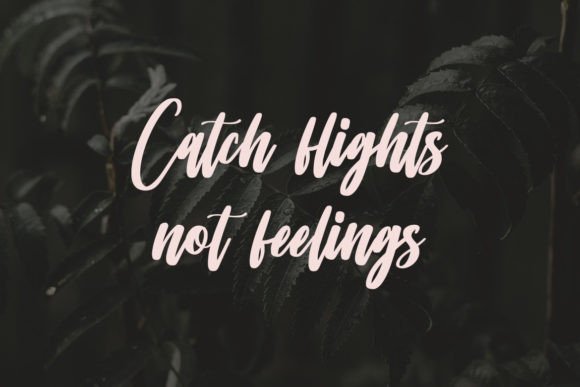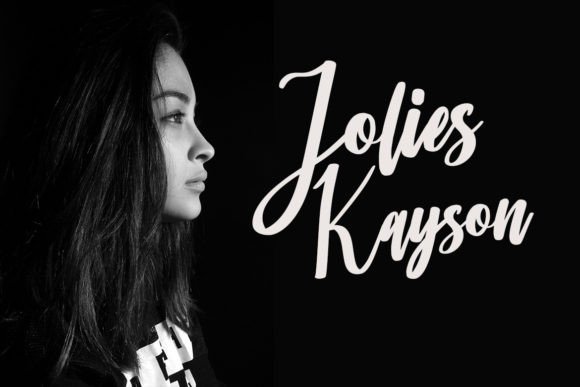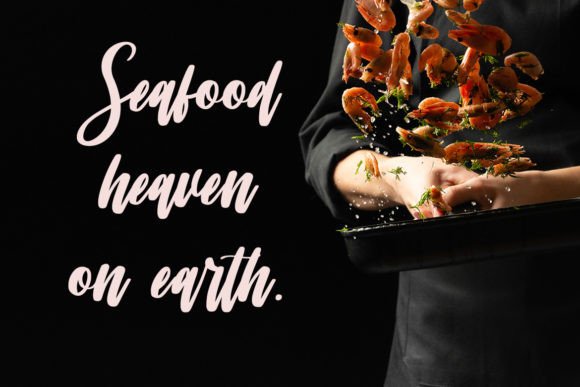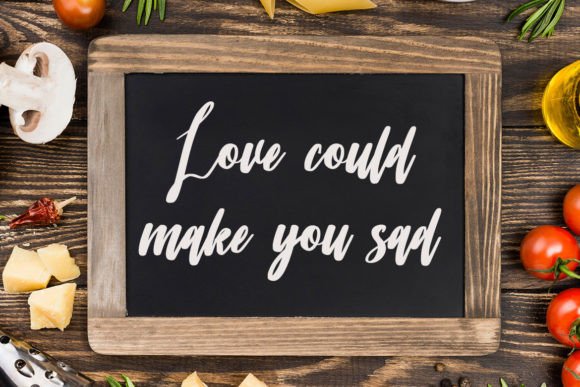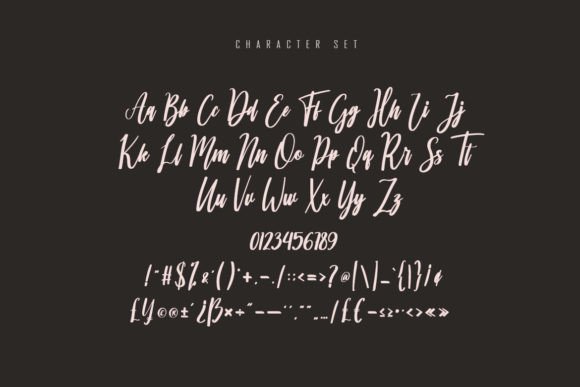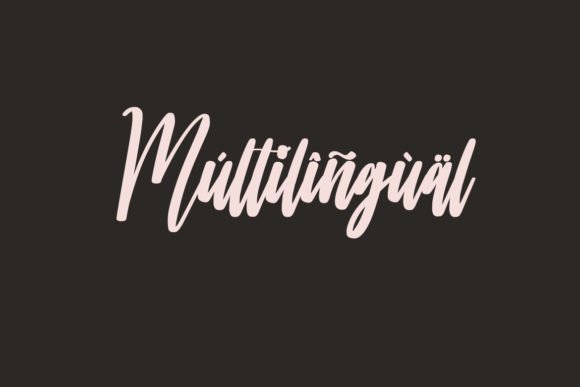
Addinu Lana Font: Elevate Your Designs with a Touch of Elegance
In the world of typography, fonts play a crucial role in conveying the tone and personality of a design. For designers and crafters seeking a script font that exudes elegance and sophistication, Addinu Lana is an excellent choice. This beautiful script font boasts a natural flow and stunning style, making it perfect for a wide range of design projects.
The Beauty of Addinu Lana Font
Addinu Lana is a script font that stands out for its fluid, handwritten appearance. Its elegant strokes and curves create a sense of movement and harmony, making it ideal for designs that require a touch of refinement. Whether you’re working on wedding invitations, branding materials, or social media posts, Addinu Lana adds a level of sophistication that elevates your designs.
One of the key benefits of Addinu Lana is its versatility. This script font can be used for a wide range of design projects, including:
- Wedding invitations and stationery: Add a touch of romance and elegance to your wedding designs with Addinu Lana.
- Branding and logos: Create a lasting impression with a custom logo or branding materials that showcase your business’s personality.
- Social media posts: Elevate your social media presence with eye-catching graphics and posts that feature Addinu Lana.
- Advertisements: Grab attention with ads that incorporate this beautiful script font.
- Product packaging and design: Add a touch of sophistication to your product packaging and design with Addinu Lana.
- Labels and photography: Use Addinu Lana to create stunning labels and watermarks for your photos.
- Invitations and stationery: From birthday invitations to thank-you cards, Addinu Lana is perfect for any occasion.
Why Choose Addinu Lana Font?
So, what sets Addinu Lana apart from other script fonts? Here are just a few reasons why designers and crafters love this font:
- Natural flow: Addinu Lana’s fluid strokes and curves create a sense of movement and harmony.
- Beautiful style: This script font boasts a stunning, elegant appearance that’s perfect for designs that require a touch of sophistication.
- Versatility: Use Addinu Lana for a wide range of design projects, from wedding invitations to product packaging.
- Easy to read: Despite its elegant appearance, Addinu Lana is easy to read, making it perfect for body text and headlines.
Tips for Using Addinu Lana Font
To get the most out of Addinu Lana, here are a few tips to keep in mind:
- Pair with complementary fonts: Combine Addinu Lana with sans-serif fonts or other script fonts to create a visually appealing contrast.
- Experiment with colors: Addinu Lana looks stunning in a variety of colors, from classic black and white to bold brights.
- Use it sparingly: While Addinu Lana is beautiful, it can be overwhelming if overused. Use it sparingly to create a lasting impression.
Addinu Lana is a stunning script font that adds a touch of elegance and sophistication to any design project. With its natural flow, beautiful style, and versatility, it’s perfect for designers and crafters seeking a font that elevates their designs. Whether you’re working on wedding invitations, branding materials, or social media posts, Addinu Lana is an excellent choice.